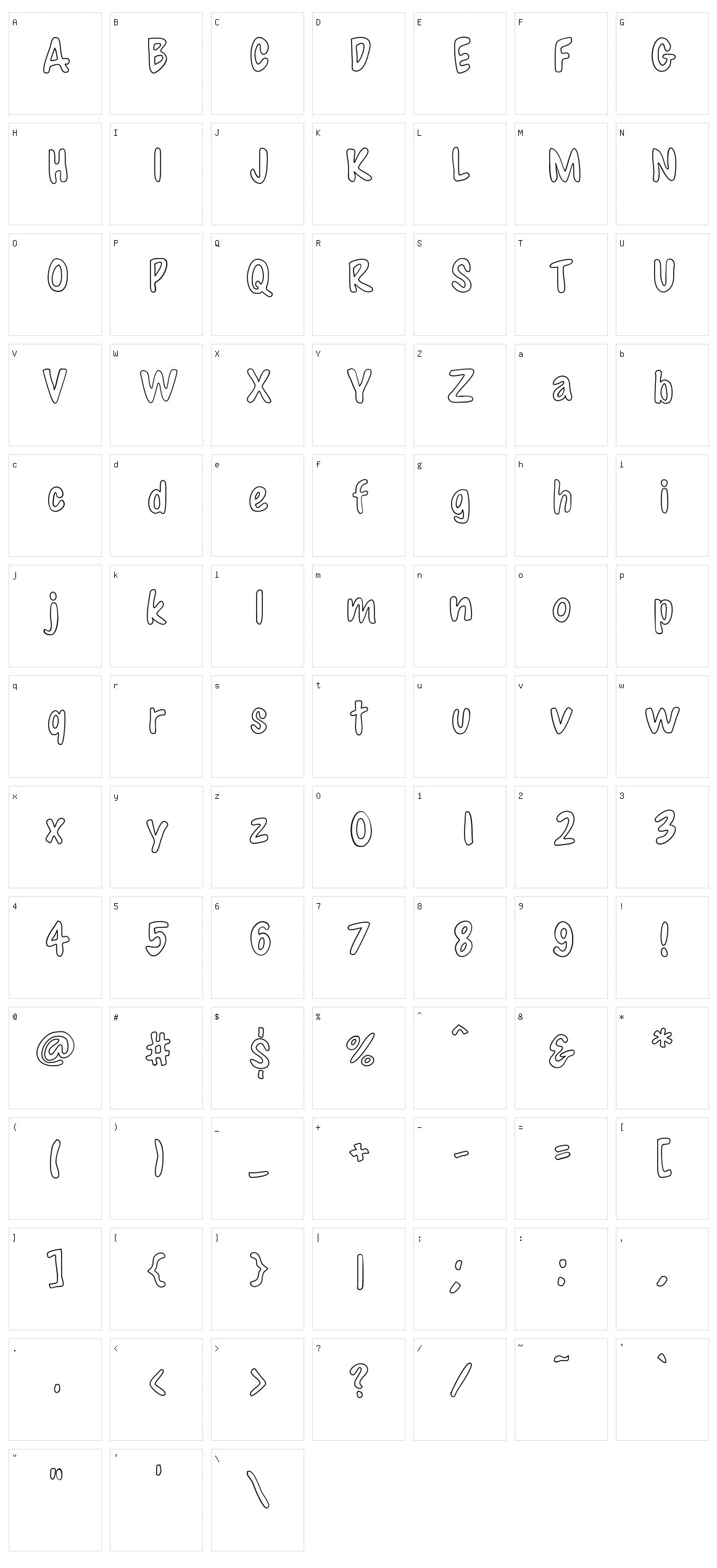
The free font Snacktime is carefully designed by Shabaca Designs, showcasing a thoughtful balance of creativity and usability and falls under the Cartoon font style. When you download the ZIP file, it contains only 69.32 KB of font files, making it lightweight and quick to download. Please review the license details below to understand permitted usage and distribution rights. If license information is not available, we recommend using this font for personal projects only or contacting the author directly for commercial usage permissions.